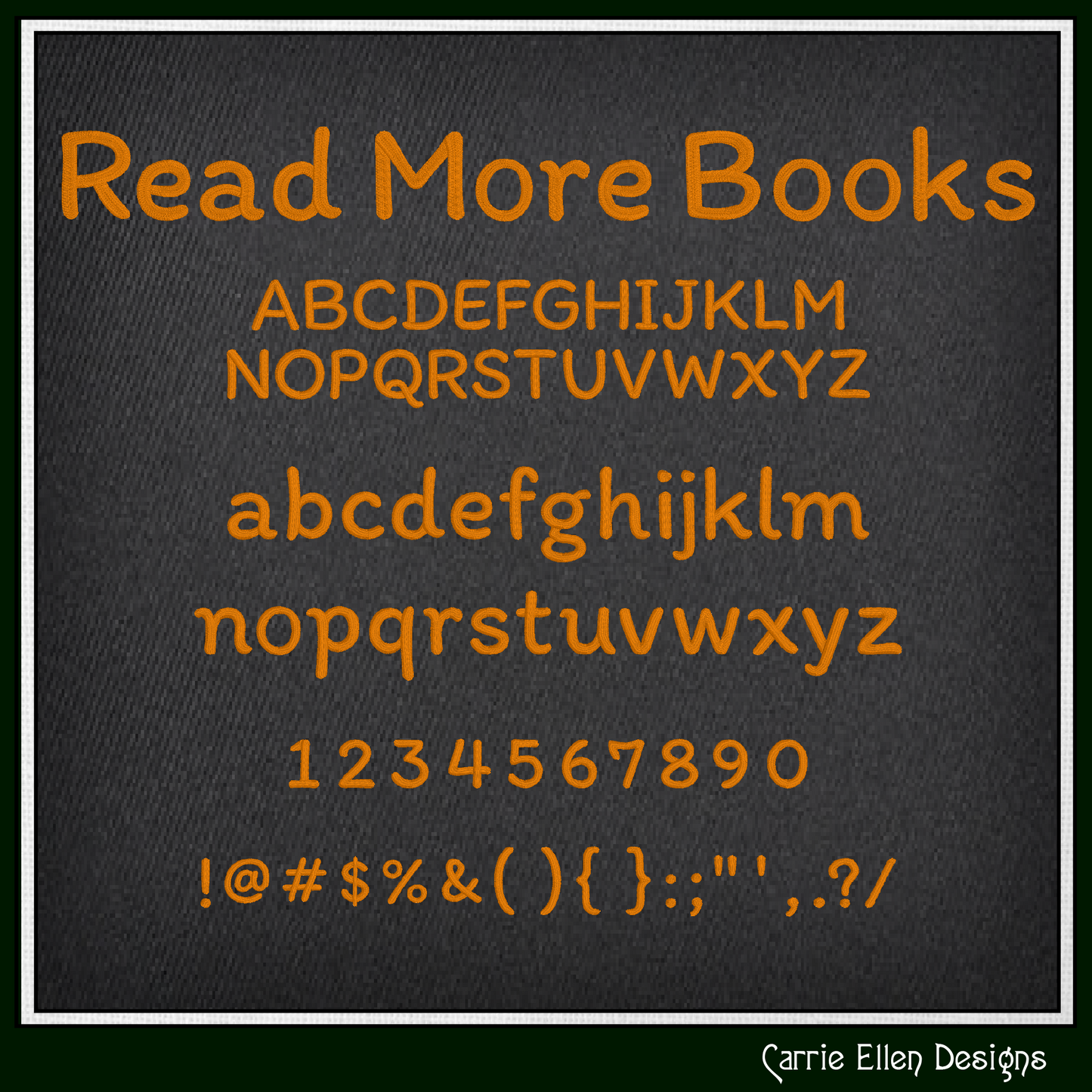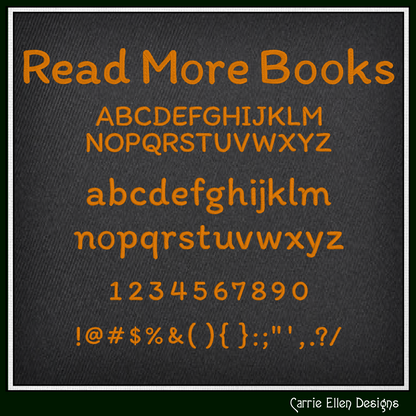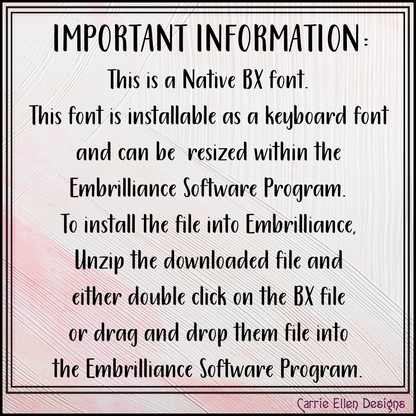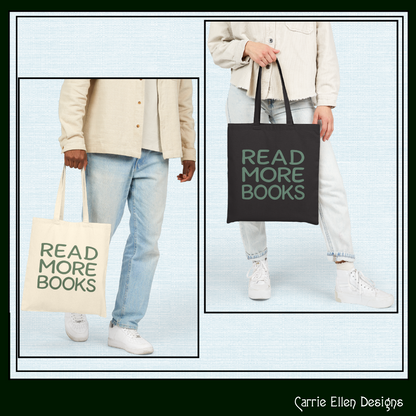
Read More Books BX Font & Lettering Stitch Files | Handwritten Casual Block Alphabet Machine Embroidery Font (3982)
Add personality and charm to your stitching with the Read More Books BX Font & Lettering Stitch Files — a handwritten-style casual block alphabet designed for clean, smooth embroidery.
Perfect for quotes, names, book-themed projects, school items, and everyday personalization, this font blends playful character with excellent stitch clarity.
Font Features
- Casual handwritten block-style alphabet
- Clean stitch flow for smooth results
- Balanced density for crisp lettering
- Perfect for small and medium hoop projects
- Uppercase letters
- Lowercase letters
- Numbers
- Basic punctuation
- Consistent styling across all characters